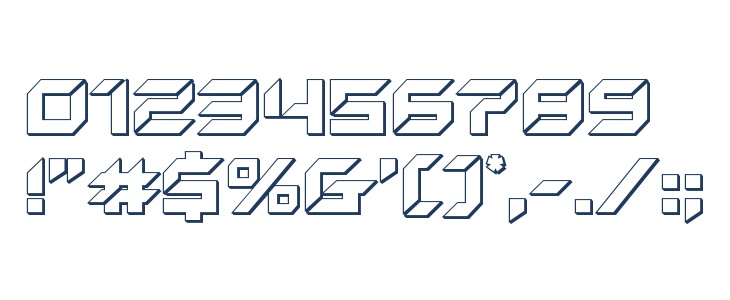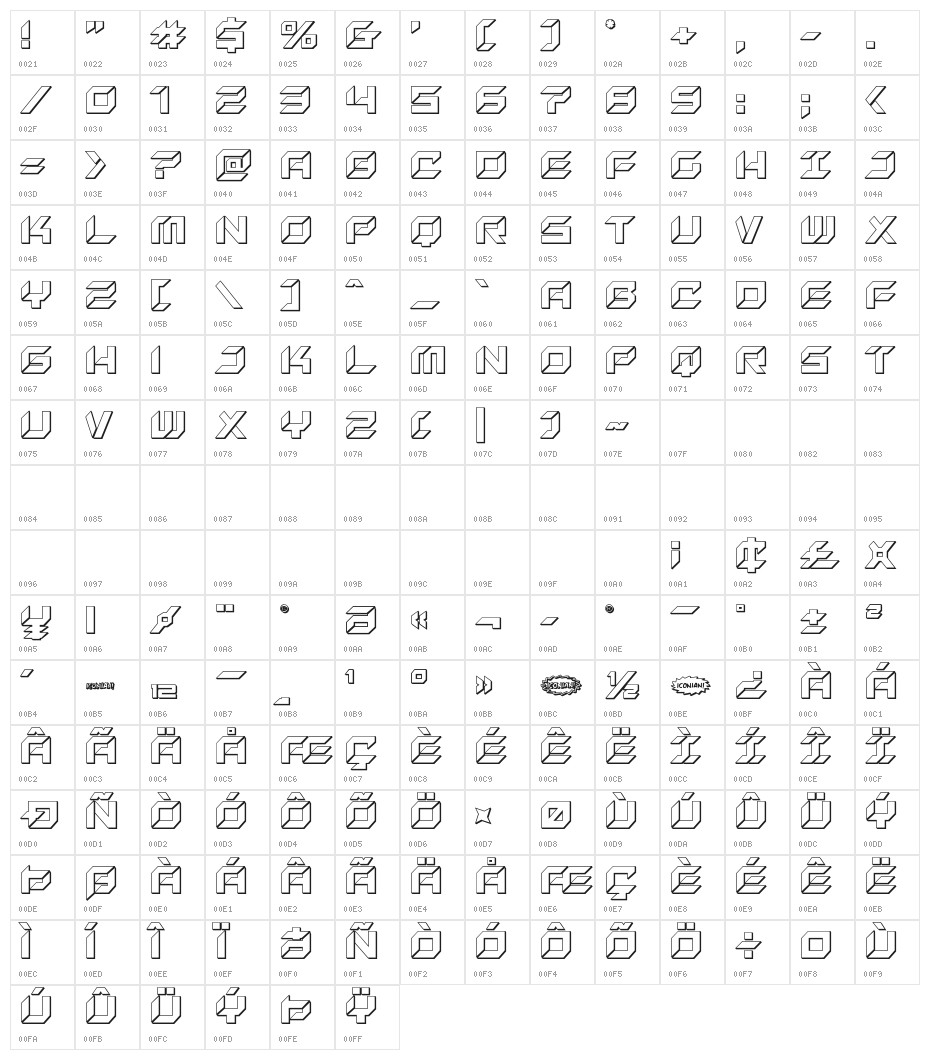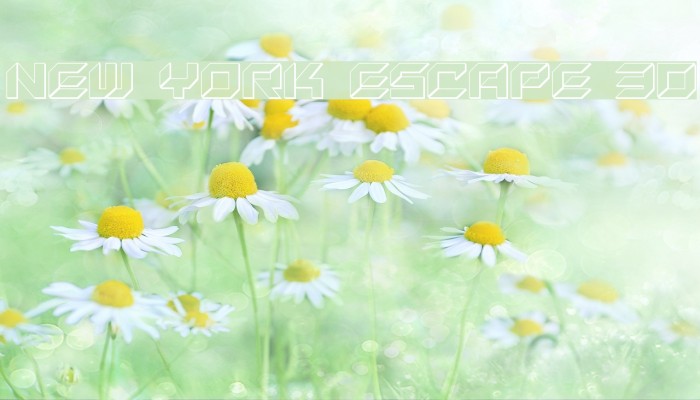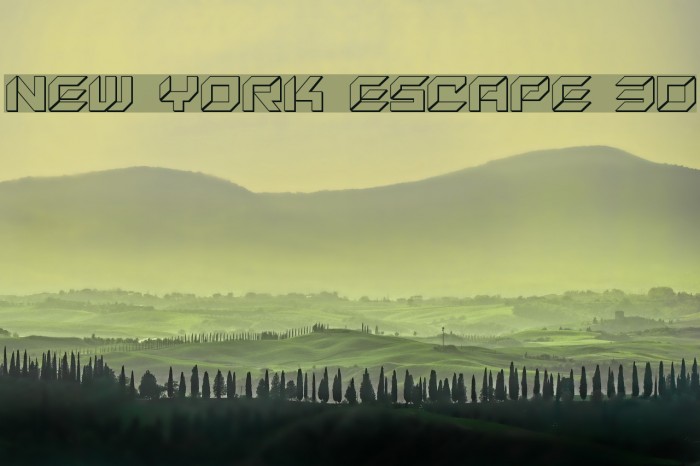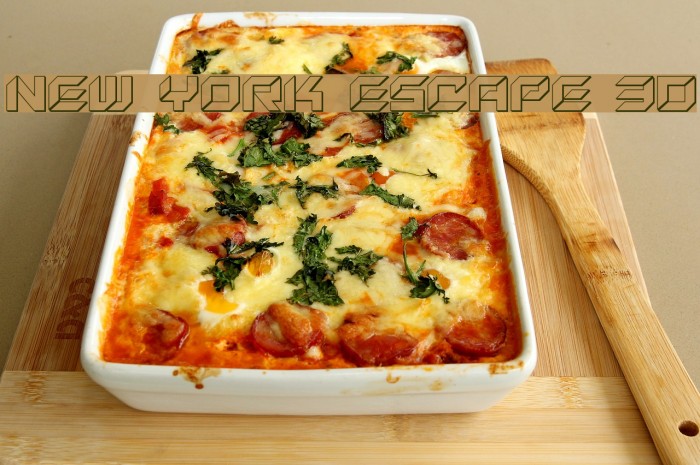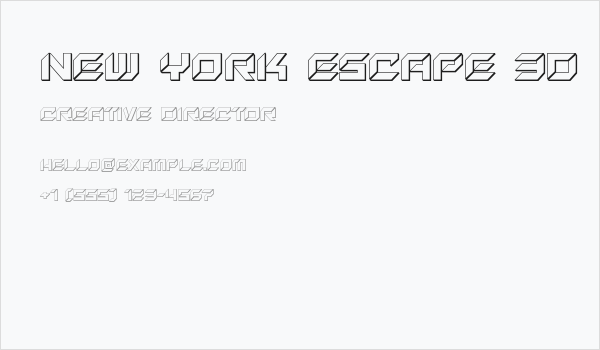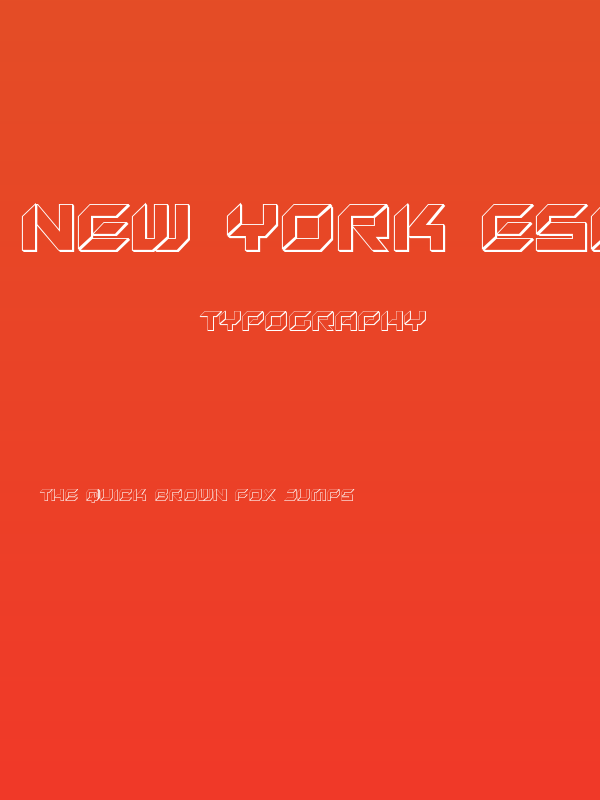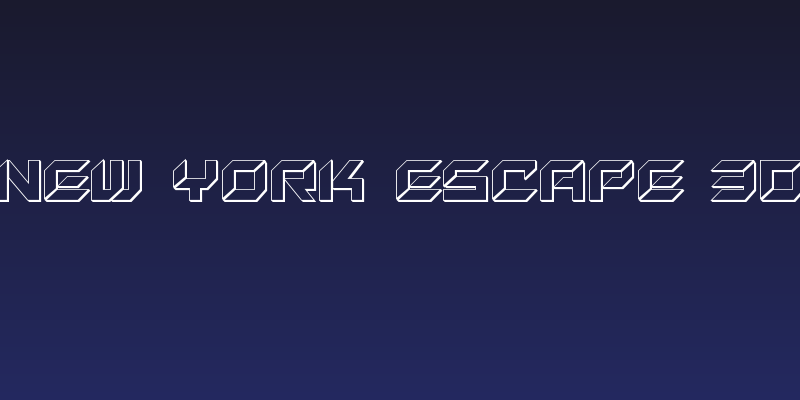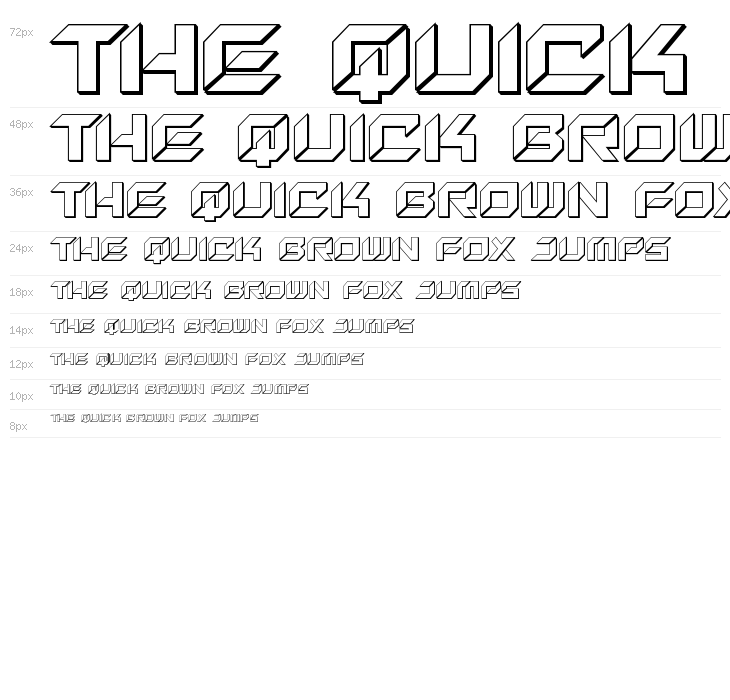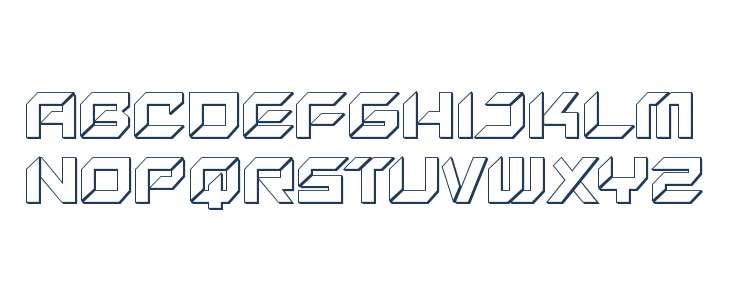
New York Escape 3D Font
New York Escape 3D Description
This font features a bold, three-dimensional design with a futuristic and geometric aesthetic. The characters are outlined, creating a sense of depth and movement. Each letter and number is crafted with sharp angles and clean lines, giving it a modern and edgy look. The font maintains a consistent width across all characters, enhancing its uniform appearance. The special characters are designed to match the bold and dynamic style of the alphanumeric characters, making it suitable for attention-grabbing designs.
| Proposed Projects | Ideal for video game titles, sci-fi movie posters, tech branding, and modern digital artwork. |